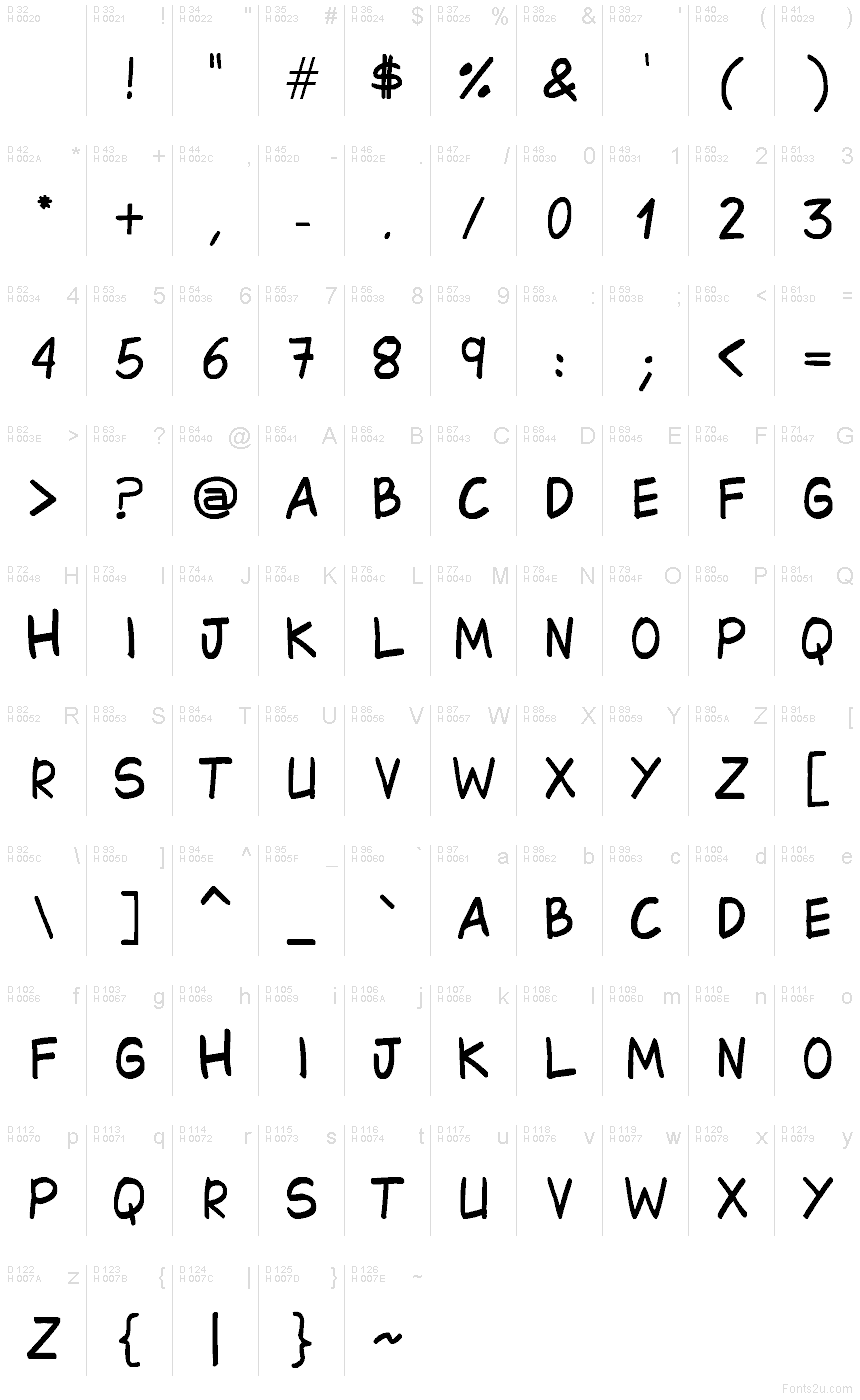
Edson-BOOM
Edson-BOOM font designed by Edson Lemos is a display typeface with comic-style features and playful character. Its casual spirit is presented through high-energy rounded forms that give it a contemporary vibe. The letters do not have the same baseline all while being irregular and wacky at times resulting in an animated and hard-to-miss appearance.
This is my own comic font, EDSON BOOM. I decided that instead of downloading fonts I didn't like, paying for fonts, or using paid fonts illegally, it would be better to create my own.
By doing so, I could establish my unique style, leave my mark, and enhance my work as a comic artist.